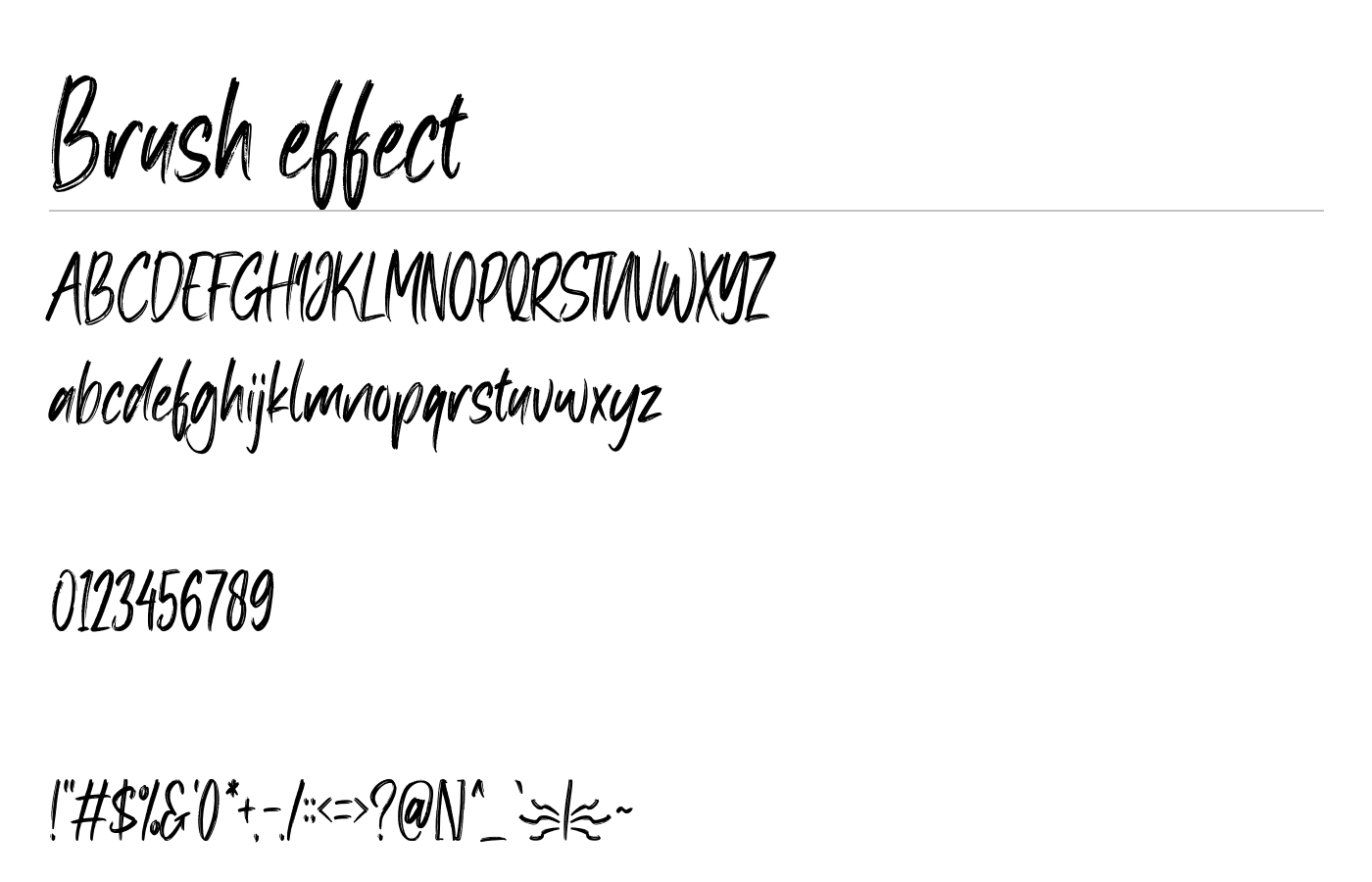
Brush Effect is a lively handwritten script font with a casual, artistic vibe created by its brushstroke texture and irregular letterforms. Its tall, narrow characters and slight slant give it an energetic, dynamic feel, making it perfect for creative branding, invitations, and modern, playful designs. This font works well in headlines and logos where a personal touch and expressive style are desired.
Brush effect Font
| Designer | Siti Nurjanah |